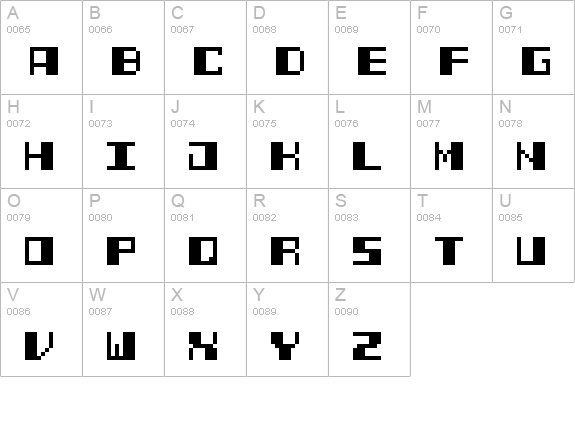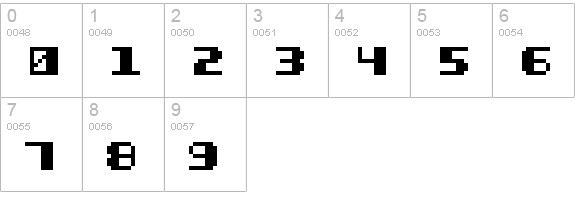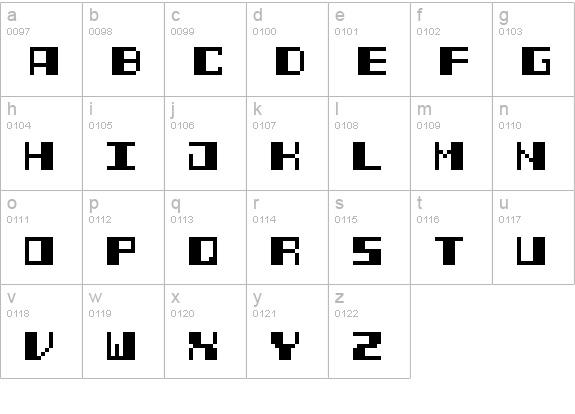
Power Pixel-7 is a free for personal use font in the Fancy > Pixel category. It has been downloaded 218 times and is available for Windows, Mac and Linux.
Power Pixel-7 font is a stunning display typeface that exudes a modern and edgy vibe. With its bold and sharp design, this font is perfect for making a powerful statement. Each letter is meticulously crafted with pixel-like details, creating a unique and eye-catching appeal. What makes Power Pixel-7 even more appealing is that it is available for free! Yes, you read that right. This incredible font can be downloaded at FontsMarket.com without any charge. It's a fantastic opportunity to enhance your design projects with a top-notch font, without having to spend a single penny. Whether you're working on a poster, logo, website, or any other creative project, Power Pixel-7 font will undoubtedly make a lasting impression. Its distinct and versatile nature allows it to be used across various design styles, from futuristic to retro. Don't miss out on the chance to add Power Pixel-7 to your font collection. Head over to FontsMarket.com today and download this incredible font for free. Elevate your designs to new heights with the unique and impactful Power Pixel-7 font.